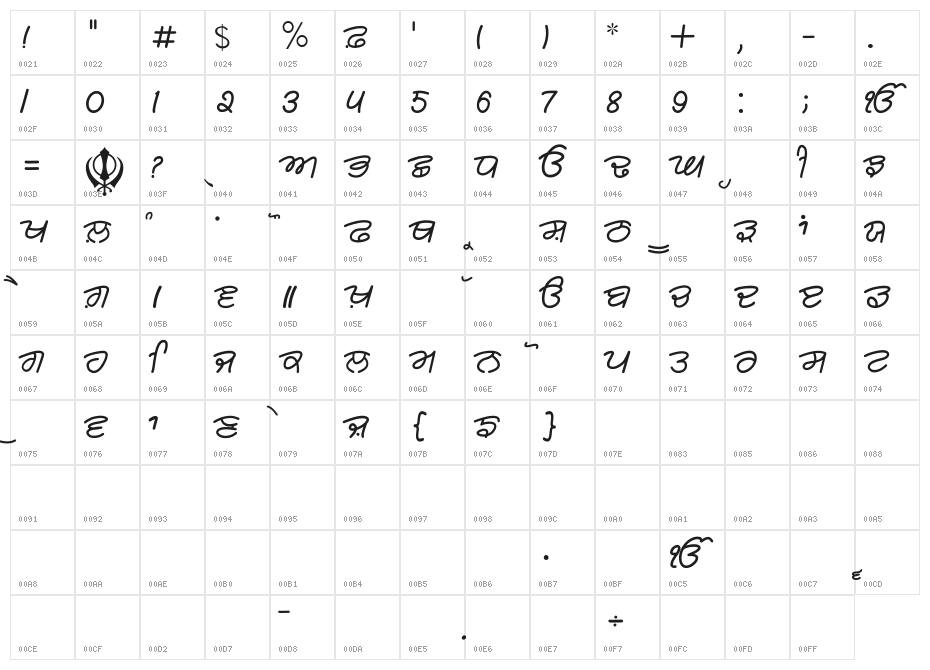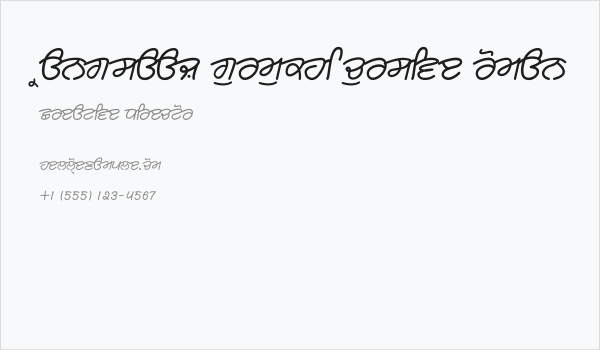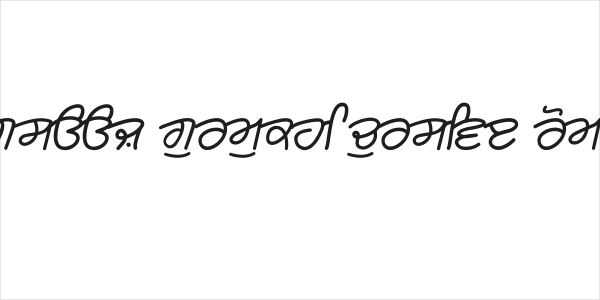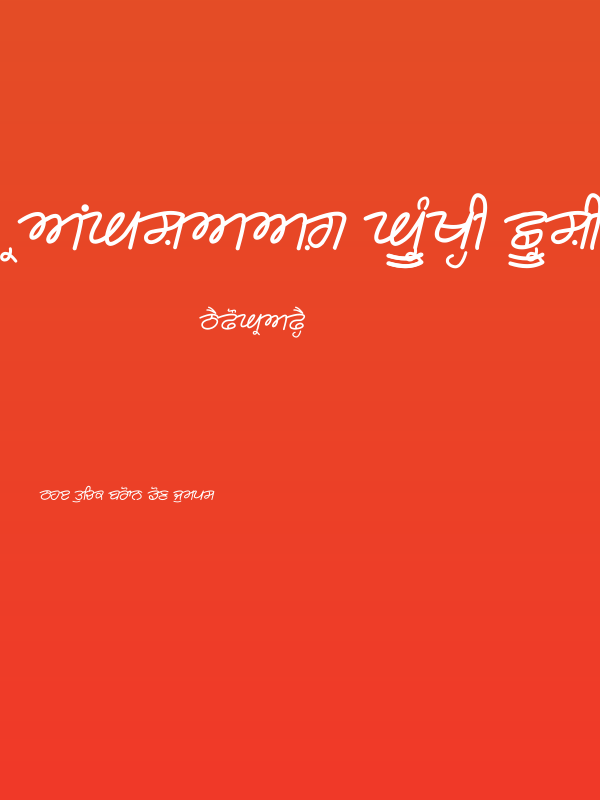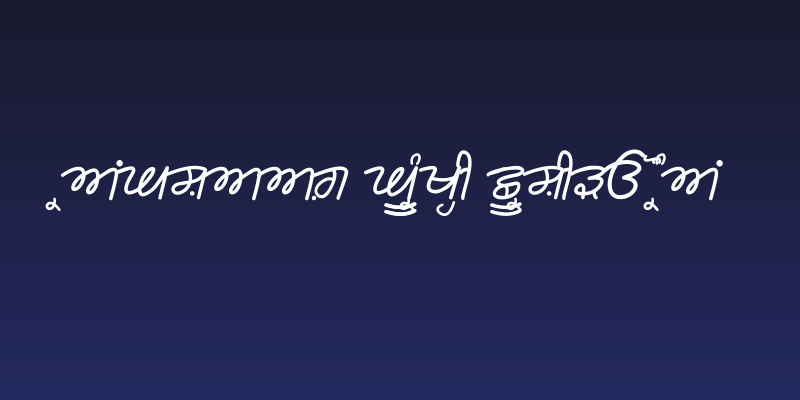
Rangsaaz gurmukhi cursive roman Font
Rangsaaz gurmukhi cursive roman Description
This font features a cursive style with a flowing, handwritten appearance. The characters are connected, creating a seamless and elegant look. The strokes are smooth and rounded, giving it a friendly and approachable feel. The font includes a full set of numerals and special characters, maintaining the same fluidity and style throughout. It is designed to mimic the natural handwriting of the Gurmukhi script, making it suitable for artistic and decorative purposes. The overall design is both traditional and modern, offering versatility in various applications.
| Use Case | Logos, Artistic projects, Invitations |
| Proposed Projects | Ideal for greeting cards, invitations, artistic projects, and decorative text in digital and print media. |